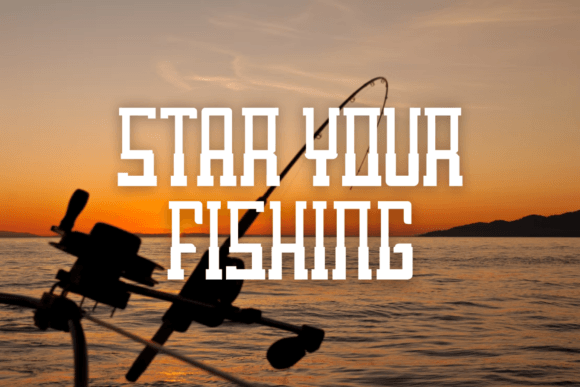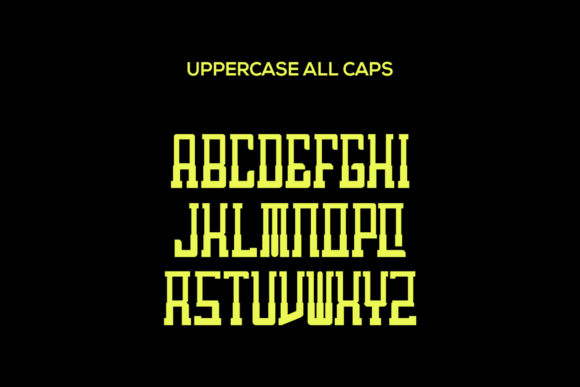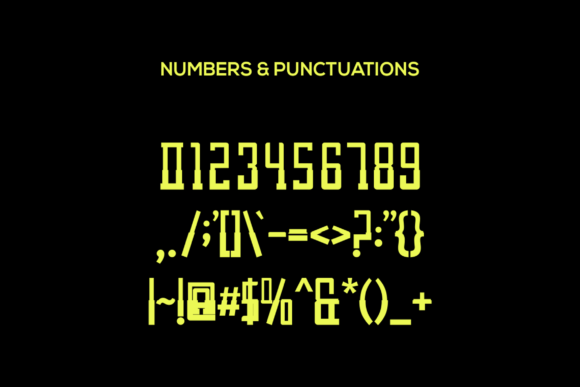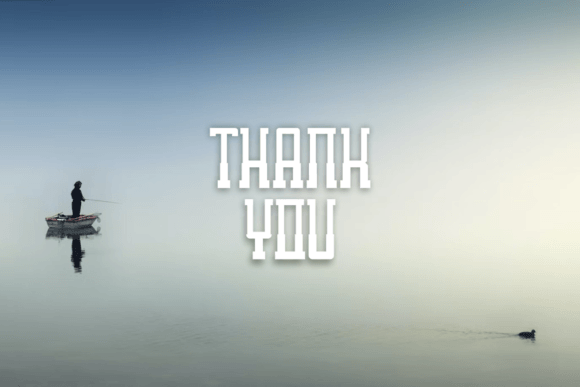
The Big Minnow Font: A Cool, Fun, and Uniquely Shaped Display Font
I still remember the time I was working on a project for a client who wanted a bold, eye-catching font to make their brand stand out. I spent hours scouring the internet for the perfect font, but nothing seemed quite right. That was until I stumbled upon the Big Minnow font. Its trendy and stylish design immediately caught my attention, and I knew I had found the perfect fit. In this article, I’ll share my experience with the Big Minnow font, its features, and how to make the most of it in your designs.
A Personal Review of Big Minnow
• ✨ Unique and quirky design that’s sure to turn heads
• ✅ Highly legible, even at large sizes
• 🎉 Fun and playful vibe that’s perfect for creative projects
• 💻 Works well for both digital and print designs
While Big Minnow is an excellent font, there are a few things to keep in mind:
• 🤔 May not be suitable for body text due to its bold and playful nature
• ⚠️ Limited use of OpenType features, but still offers some great glyphs and stylistic alternates
The Backstory of Big Minnow
The Big Minnow font was designed by a team of creatives who wanted to create a unique and eye-catching display font. Inspired by the world of fishing and the thrill of reeling in a big catch, they set out to create a font that would make a statement. With its bold, playful design and quirky personality, Big Minnow is the perfect font for designers who want to add a touch of fun and whimsy to their work.
Q: What type of projects is Big Minnow best suited for?
A: Big Minnow is perfect for creative projects that require a bold and eye-catching font, such as posters, flyers, and social media graphics.
Q: Can I use Big Minnow for body text?
A: While Big Minnow is highly legible, it’s not recommended for body text due to its bold and playful nature. Instead, use it for headings and titles.
Q: Does Big Minnow support OpenType features?
A: Big Minnow offers some great glyphs and stylistic alternates, but it has limited use of OpenType features.